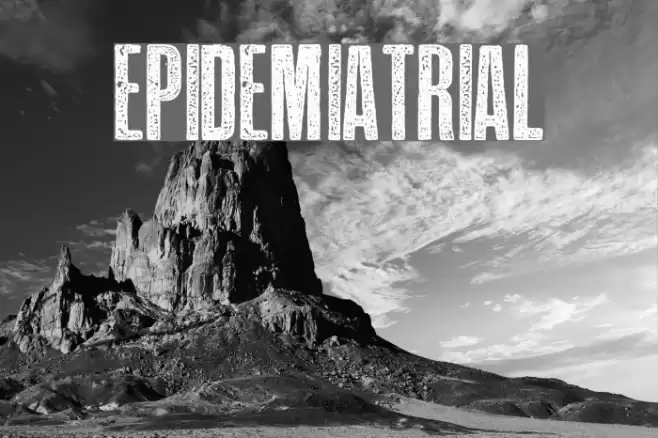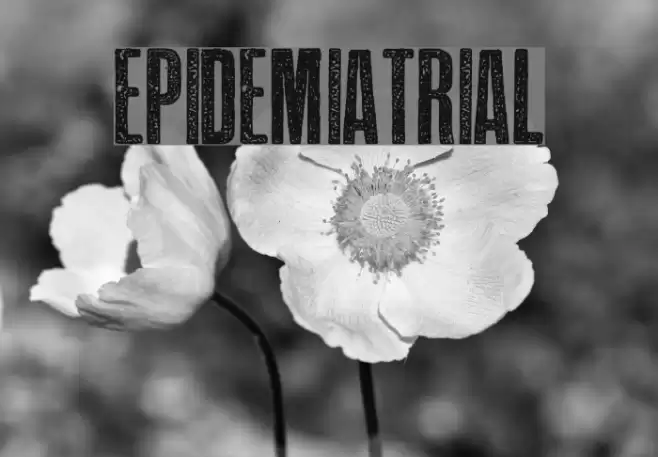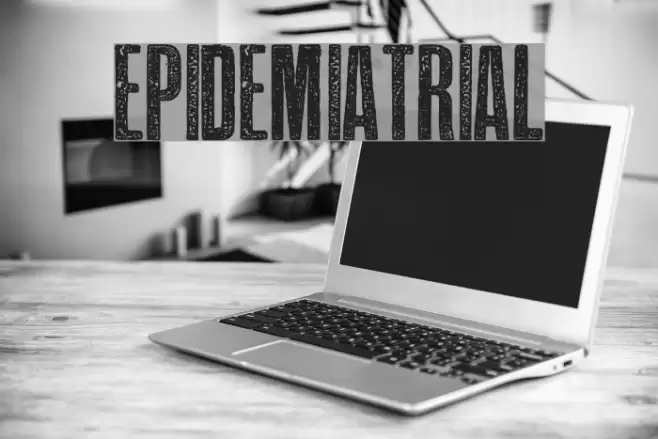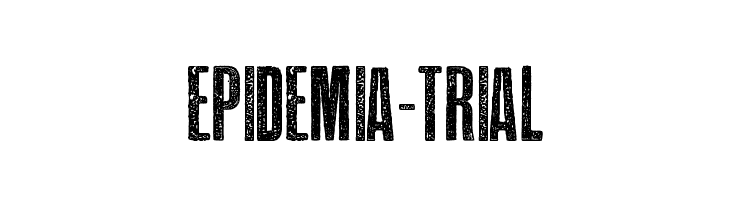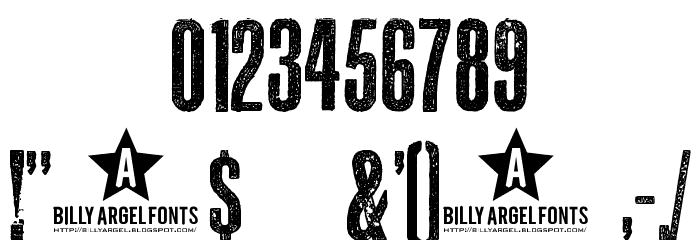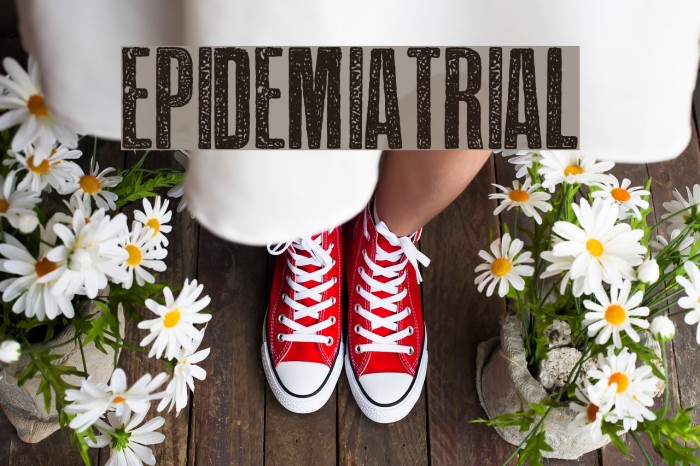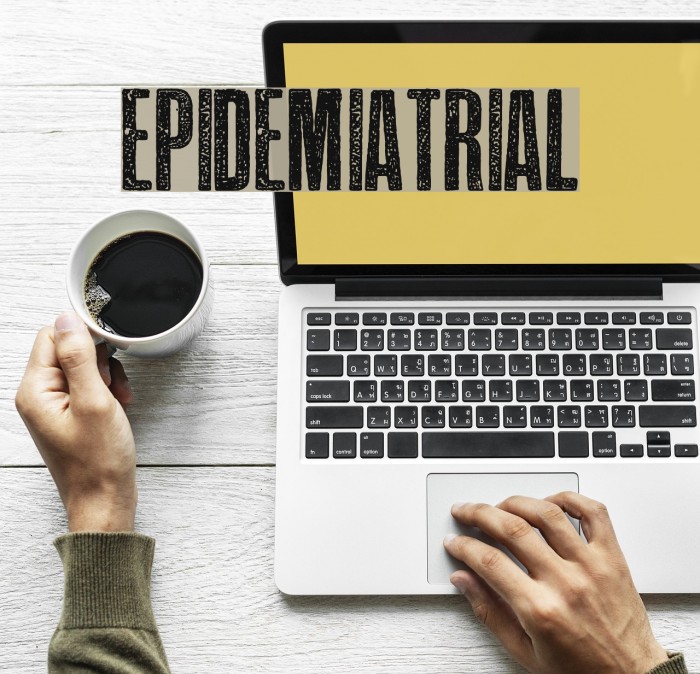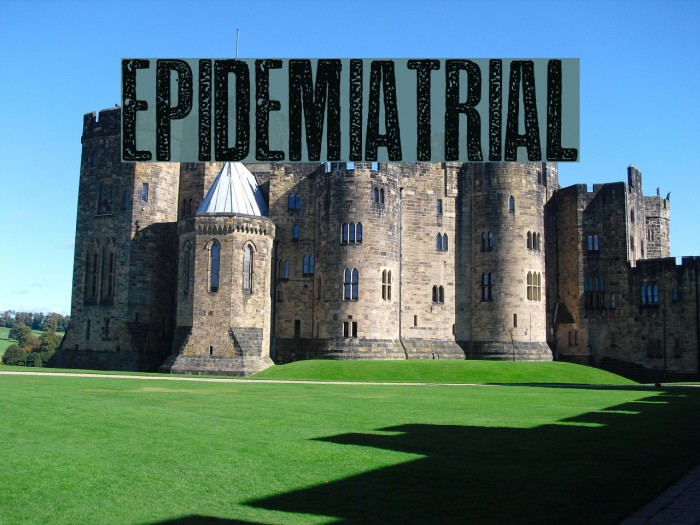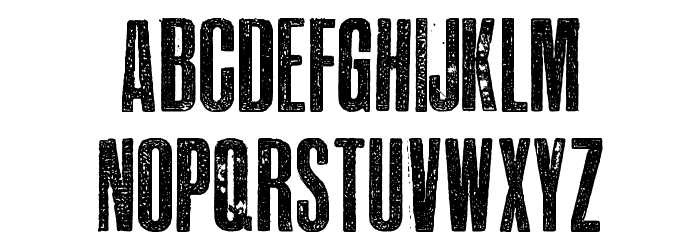
EPIDEMIA-TRIAL Font
EPIDEMIA-TRIAL Description
This font features a distressed, grunge style with a bold and rugged appearance. The characters are uppercase and have a textured, worn-out look, giving them a vintage and edgy feel. The font is highly decorative, making it suitable for impactful designs that require a strong visual presence. The letters are evenly spaced with a consistent width, providing a balanced and cohesive look. The numbers and special characters maintain the same distressed style, ensuring uniformity across all elements. This font is ideal for projects that aim to convey a sense of rawness and authenticity.
A bold, distressed font with a vintage, grunge style from Uncategorized fonts.
- Proposed Projects: Ideal for posters, album covers, branding for edgy products, and any design needing a strong, vintage aesthetic.
- Overall Style: Vintage, Grunge